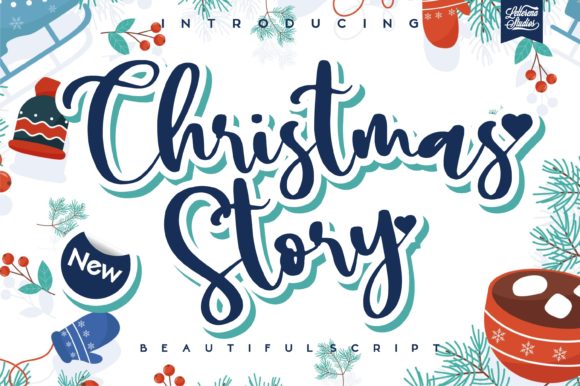
Nestled in the realm of typography, Christmas Story Font stands as a shining beacon of romance and richness, enchanting the senses with its graceful strokes and delicate curves. Each character, meticulously crafted by Letterena Studios, embodies the spirit of love and celebration, whispering tales of joy and togetherness.
Immerse yourself in the world of Christmas Story Font, a script font that dances across the page like a ballet of letters. Its PUA encoding unveils a treasure trove of glyphs and swashes, allowing you to unleash your creativity and add a touch of elegance to your designs.
With its remarkable versatility, Christmas Story Font seamlessly adapts to a kaleidoscope of festive designs, elevating them to the highest echelons of beauty and sophistication. Whether you're crafting heartwarming Christmas cards, enchanting invitations, or eye-catching social media graphics, this font will transform your words into works of art.
Step into the realm of possibility with Christmas Story Font. Its captivating essence will ignite your imagination, transforming ordinary designs into enchanting masterpieces. Allow your creativity to soar as you explore the endless opportunities that await you within this remarkable font.
Seize the moment and embrace the magic of Christmas Story Font. Let its romantic charm weave its spell on your designs, leaving a lasting impression on the hearts of your audience. Indulge in the beauty of typography and experience the transformative power of this exquisite script.